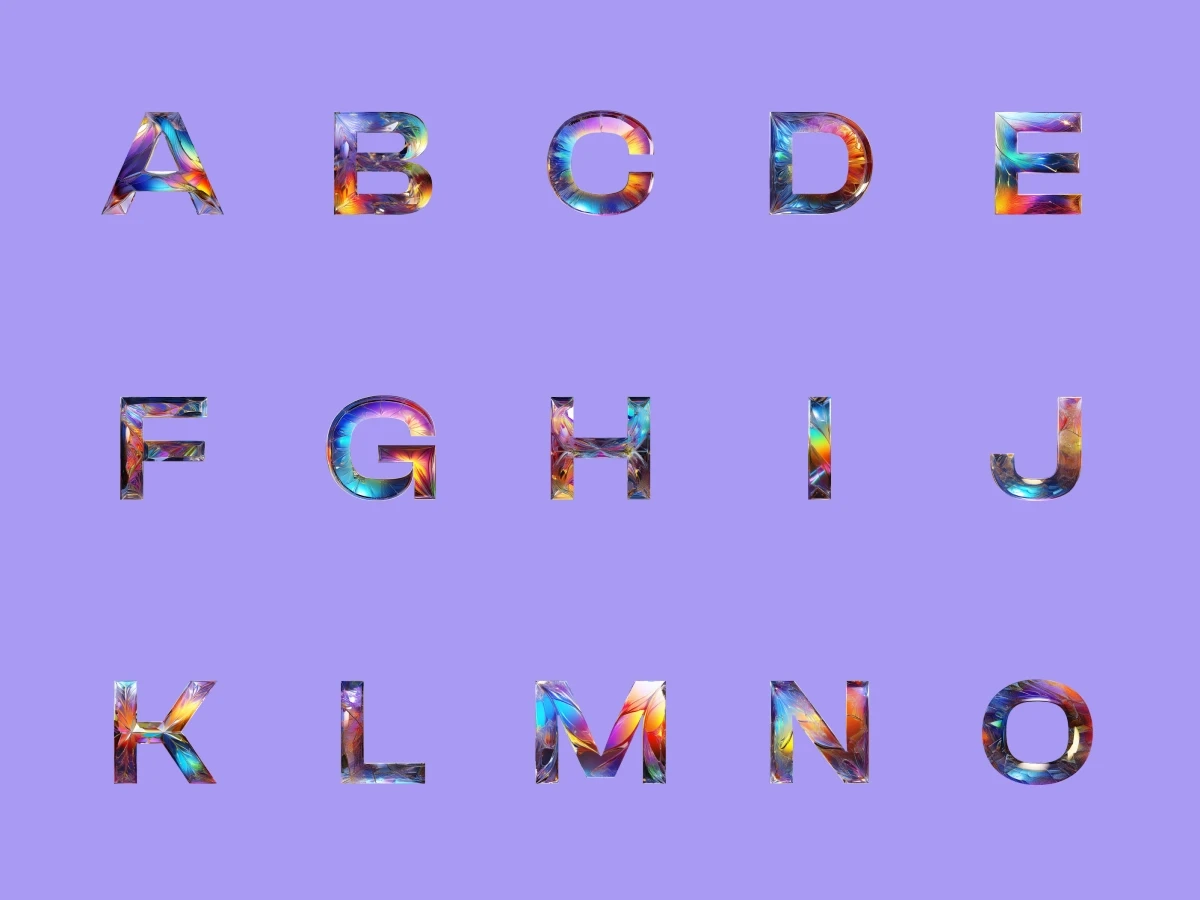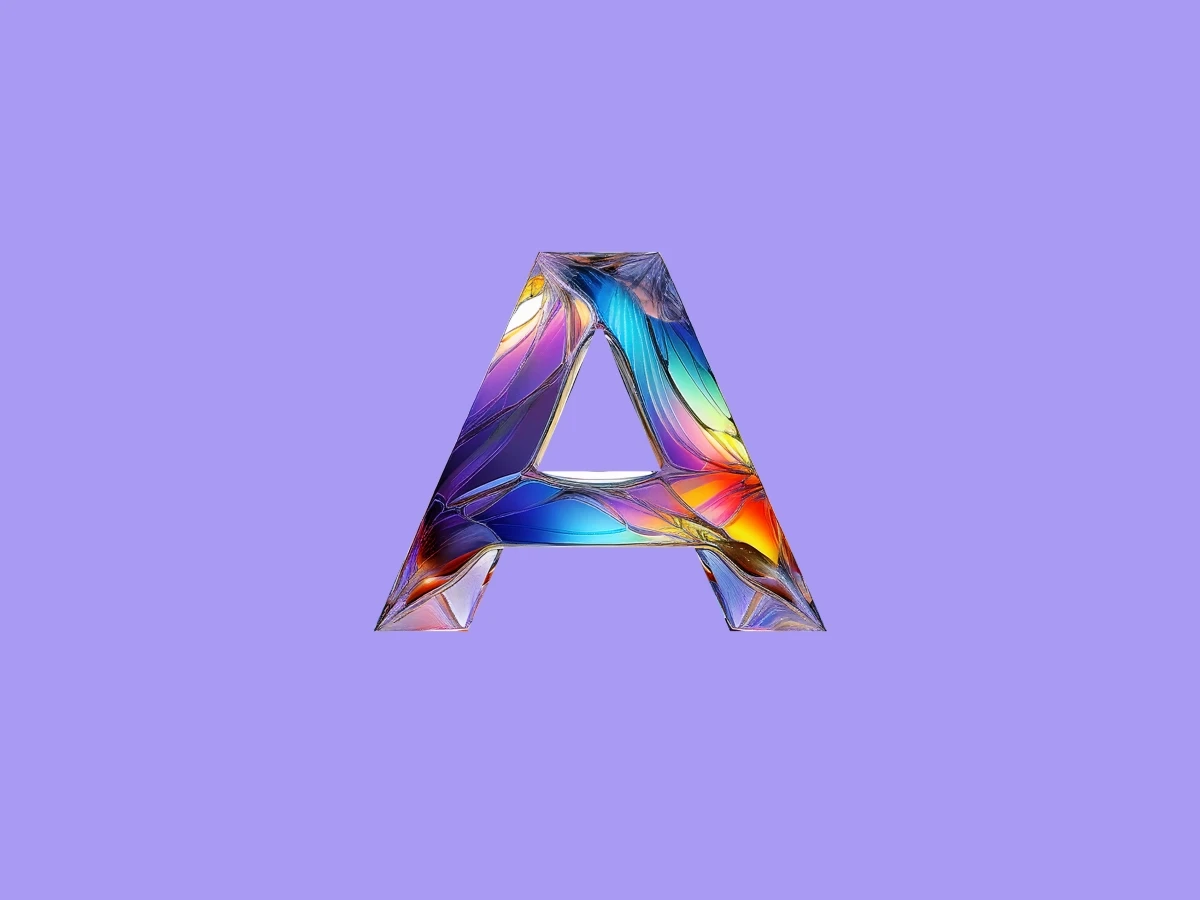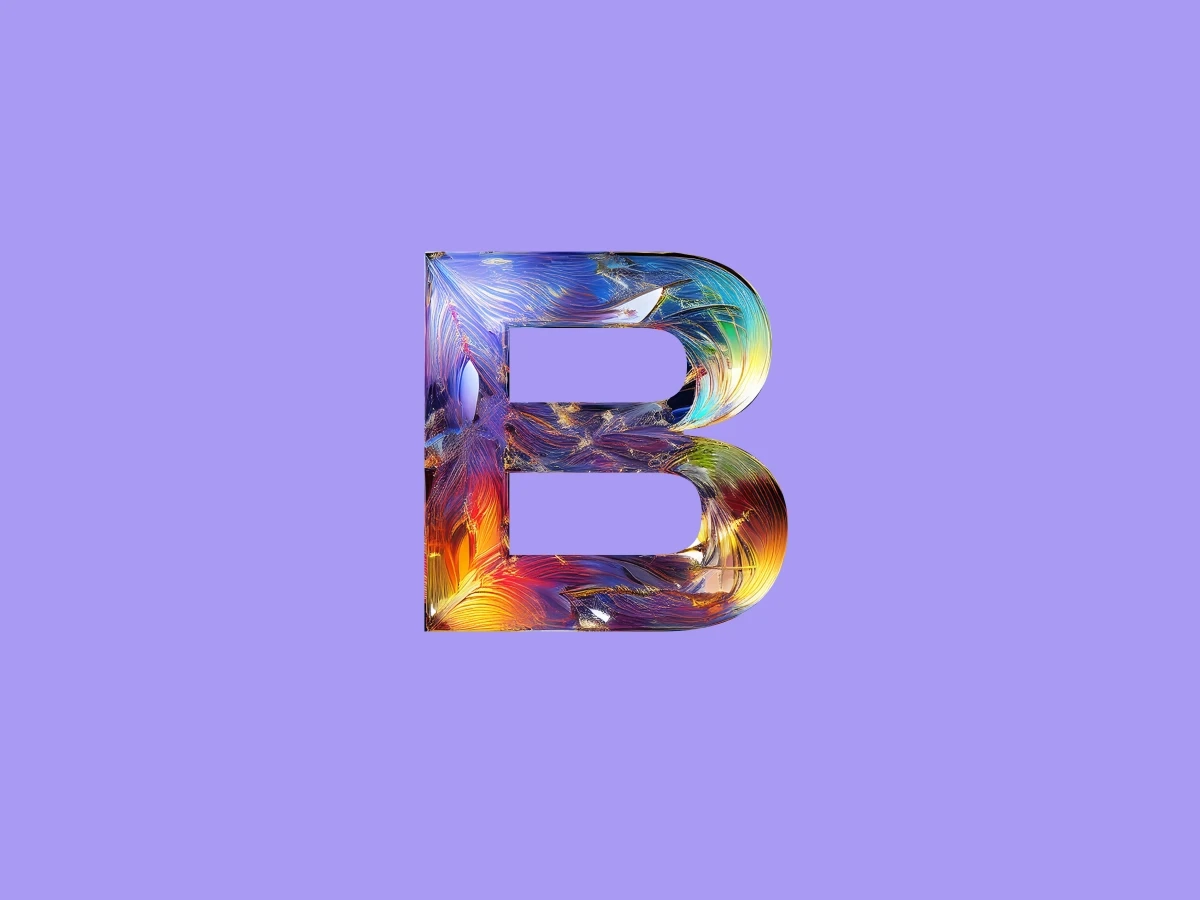
Idea
About the theme
Imagine frosted glass kissed by the cosmos subtle shards scattered, each reflecting a rainbow-like halo from chromatic aberration. The soft, misty texture blurs the light just enough, adding an ethereal touch. This design feels modern, delicate, and slightly fragile, like something cosmic yet breakable. It’s the perfect blend of shattered elegance and futuristic vibes.